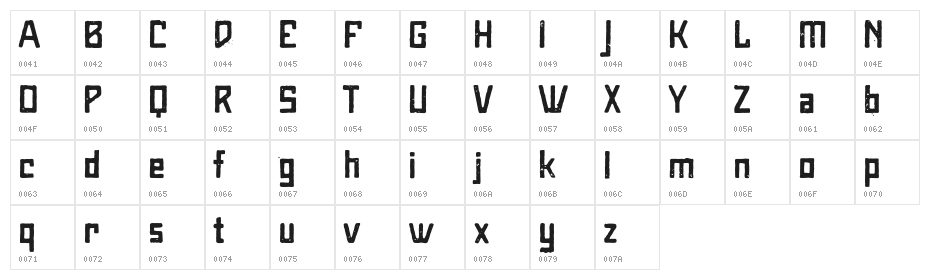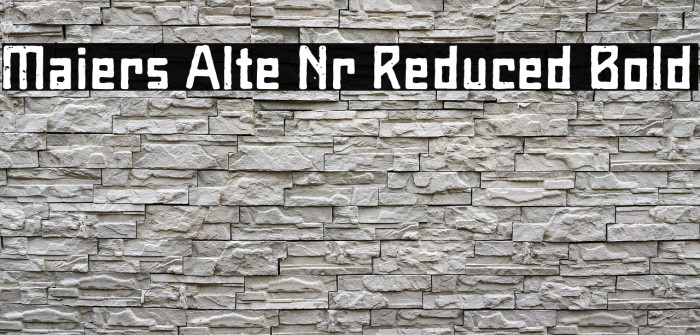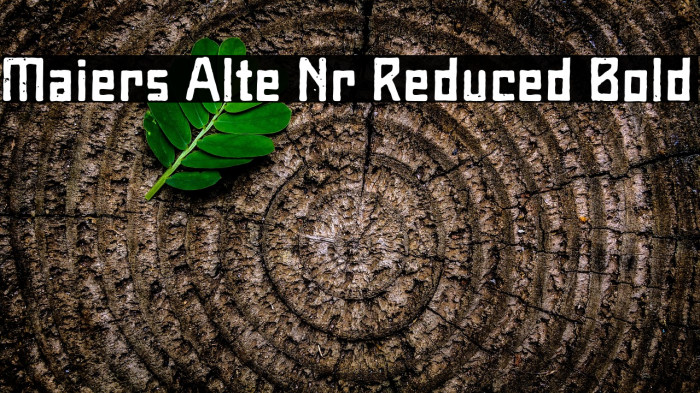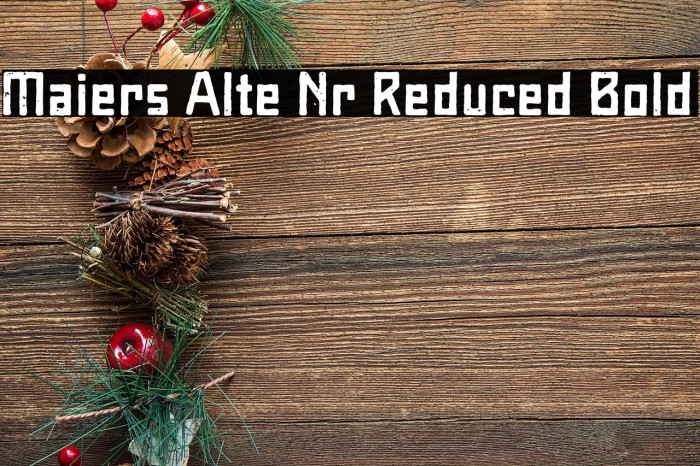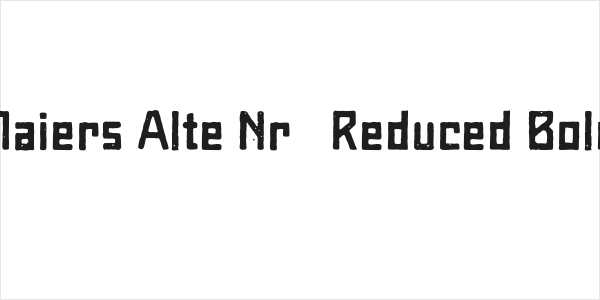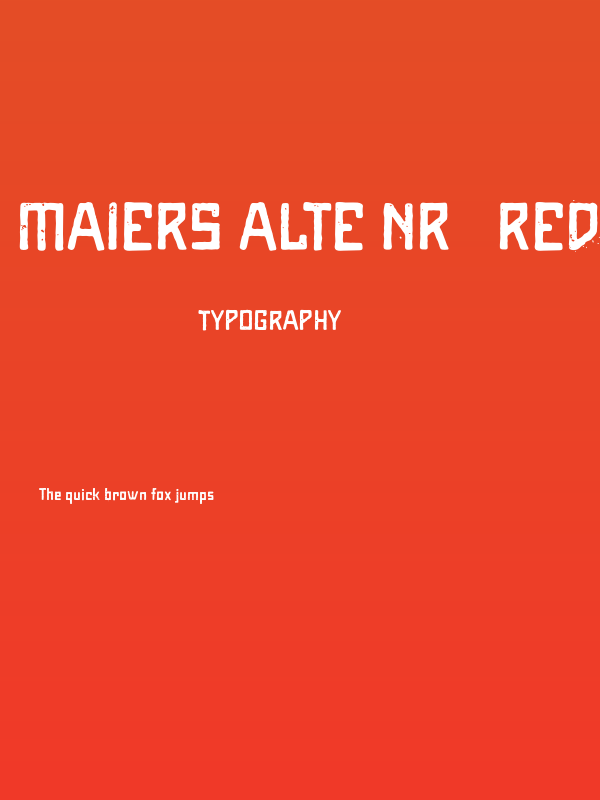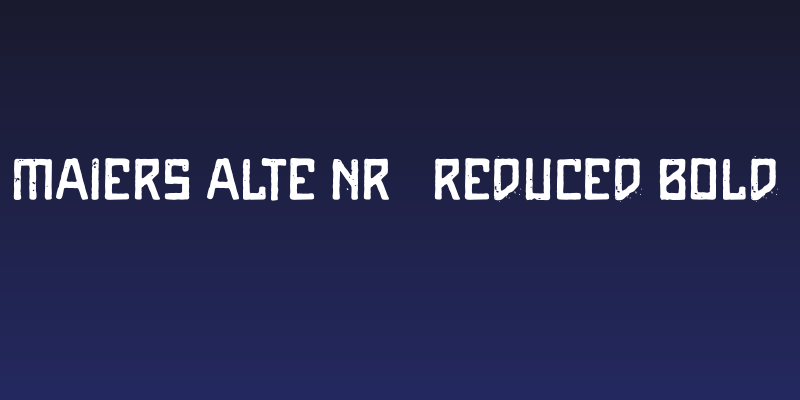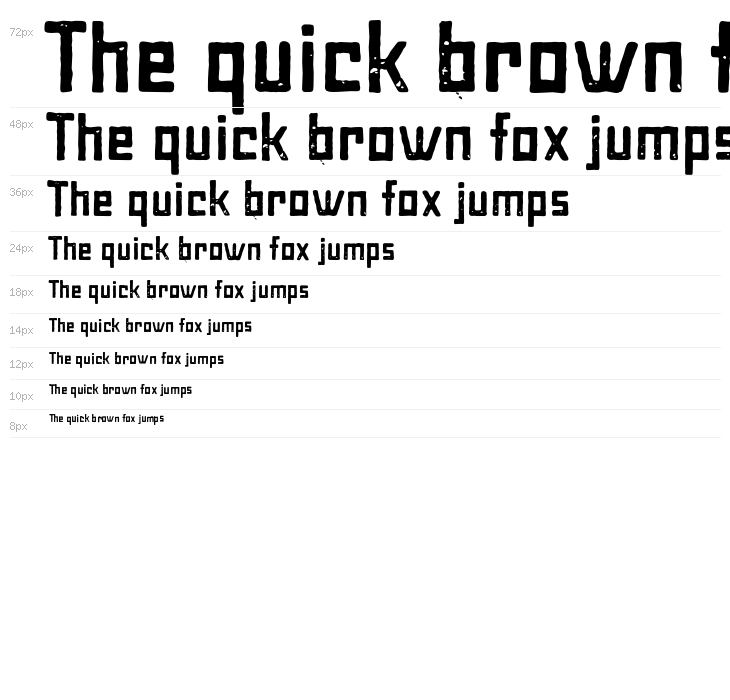
Maiers Alte Nr.8 Reduced Bold Font
Maiers Alte Nr.8 Reduced Bold Description
This font exhibits a bold and rugged style, characterized by its distressed and textured appearance. The uppercase and lowercase letters maintain a consistent height, creating a uniform look. The strokes are thick and uneven, adding a handcrafted feel to the design. The characters have a slightly condensed width, enhancing the boldness and impact of the text. This font's unique texture and boldness make it stand out, providing a vintage and industrial aesthetic. The rough edges and imperfections give it a raw and authentic look, suitable for projects that require a strong and distinctive typeface.
| Overall Style | Vintage, Industrial |
| Use Case | Logos, Posters, Branding |
| Proposed Projects | Ideal for posters, logos, branding, packaging, and any design requiring a bold, vintage look. |